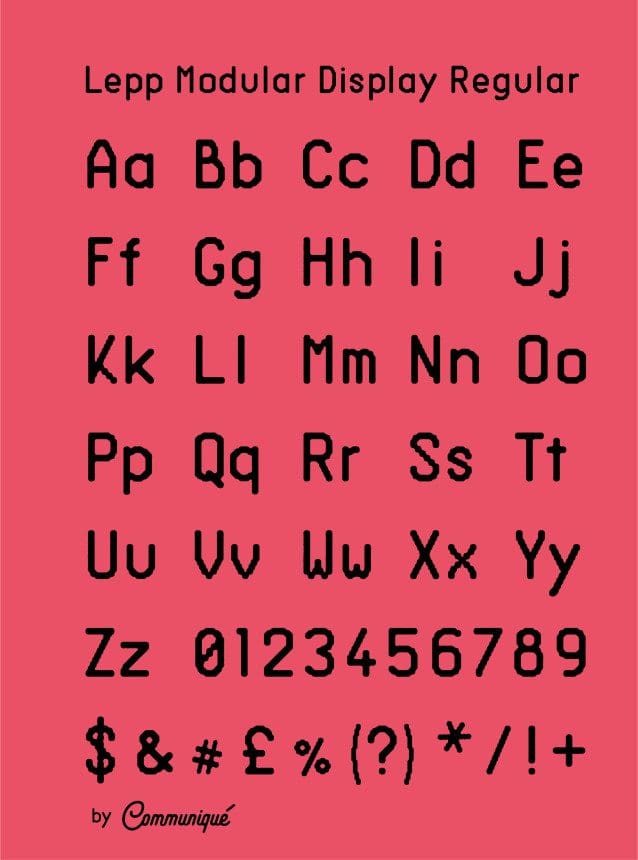
Lepp Modular Display Regular Font is a retro-modern display typeface loosely inspired by the letters of old dot-matrix printers.
Lepp Modular Display Regular Font
| Classification: | Display Fonts, Techno / Futuristic Fonts |